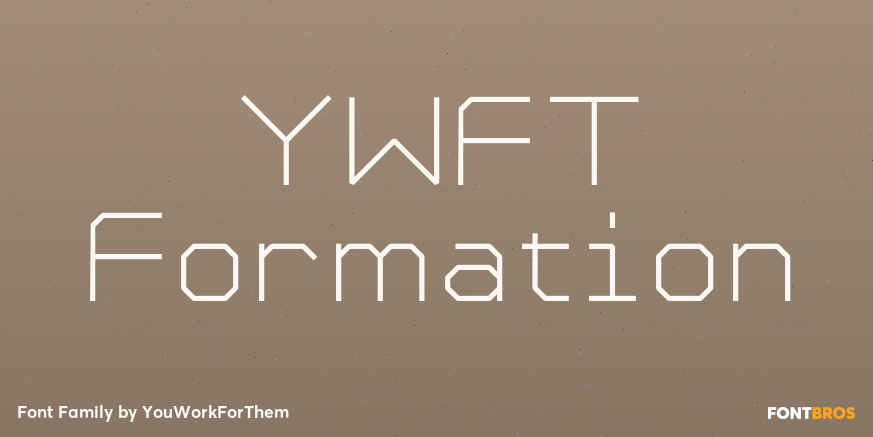
About YWFT Formation
Influenced by an appreciation for Ed Ruscha and AutoCAD, YWFT Formation is an extensive typeface design that takes those principles and applies them in a unique way. Despite having a machine-like, masculine slickness on the surface, YWFT Formation can…